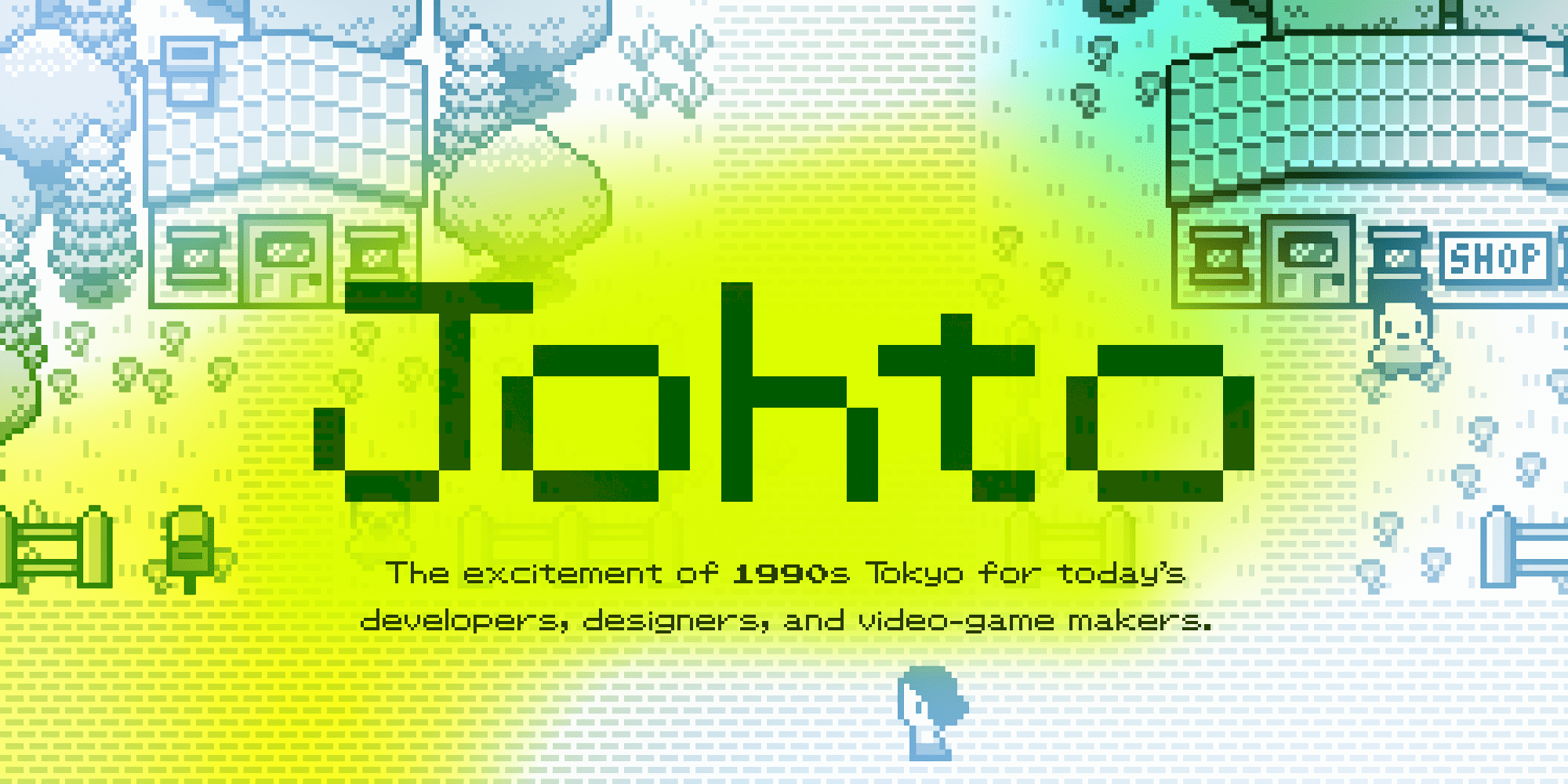
Johto Font is perfect for gaming cafes, anime conventions, Japanese cultural centers, manga bookstores, nostalgic gaming merchandise, retro video game museums, and pop culture entertainment venues. This adventurous typeface captures the spirit of exploration and Japanese gaming culture, bringing nostalgic adventure energy and authentic gaming heritage to any design project celebrating Japanese pop culture and classic gaming experiences.
What makes Johto Font exciting is its captivating combination of adventure spirit and Japanese cultural influence that perfectly embodies the exploration excitement and cultural richness of classic gaming adventures. The font features playful letterforms with adventure-inspired details and cultural character variations that evoke both the thrill of discovery and the artistic beauty of Japanese design aesthetics. Its nostalgic character appeals to gaming enthusiasts while maintaining excellent readability for both gaming merchandise and cultural event applications.
The Johto Font family includes regular and bold weights with complementary rounded variations and gaming ornamental elements. The character set features adventure ligatures, cultural symbols, gaming alternates, and Japanese decorative accents that enhance the font's authentic appeal. Extended character support includes gaming icons and Japanese cultural symbols for genuine pop culture and gaming community applications.
Whether you're designing gaming culture brands, creating anime convention materials, or developing Japanese pop culture content, Johto Font Free Download provides exceptional cultural authenticity and versatility. This adventurous typeface transforms ordinary text into exciting cultural gaming experiences that celebrate Japanese heritage while establishing memorable brand recognition in competitive gaming culture and Japanese entertainment marketplaces.